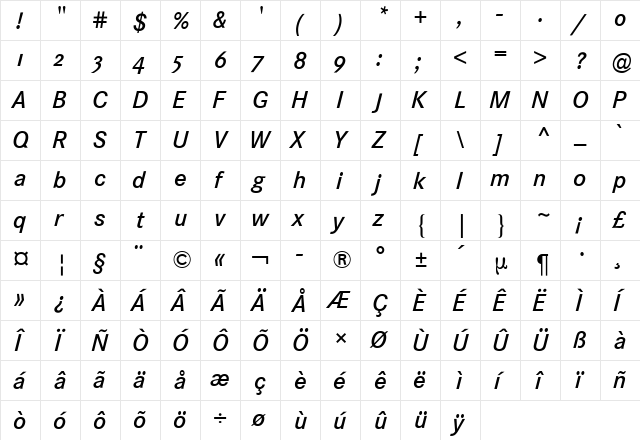
Corporate S Expert BQ Italic Font Preview
Corporate S Expert BQ Italic
Corporate S Expert BQ Italic Font Details
Design Context for Corporate S Expert BQ Typeface
Corporate S Expert BQ is a composed and adaptable typeface that performs quietly and consistently across a wide range of design contexts. The dynamic lean of this cut emphasises speed and emphasis in any layout.
Pro Tip: Use Corporate S Expert BQ for emphasis, pull quotes, and subheadings where its slanted energy can add rhythm to the layout.